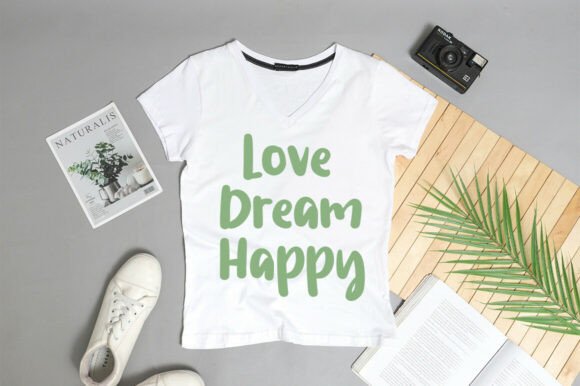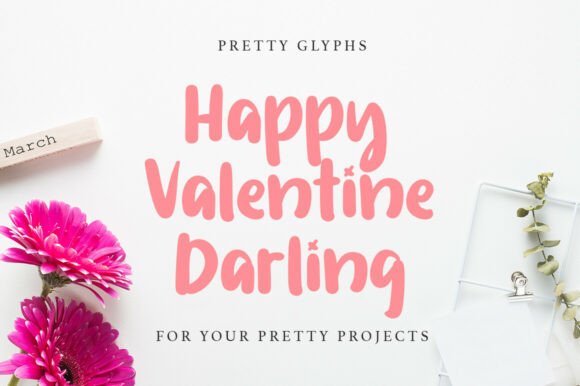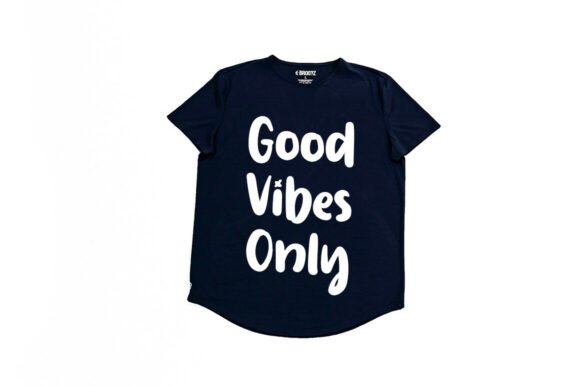
Introducing Calmline Font: The Perfect Handwritten Touch for Your Designs
Are you looking for a font that can bring warmth, personality, and a natural human touch to your designs? Look no further than Calmline Font, a beautiful handwritten font crafted to feel authentic and expressive. With its slightly imperfect strokes, smooth curves, and natural rhythm, this font is perfect for adding a friendly, stylish, and approachable look to your text.
The Beauty of Imperfection
One of the standout features of Calmline Font is its organic style, which gives your text a charming and characterful feel. The font’s slightly imperfect strokes and smooth curves evoke the feeling of real handwriting on paper, making your words feel more personal and emotional. This imperfection is what sets Calmline Font apart from more traditional fonts, giving it a unique and authentic feel that resonates with audiences.
Flexibility and Versatility
Calmline Font strikes the perfect balance between casual and elegant, making it incredibly flexible for all kinds of creative projects. Whether you’re designing logos, branding, social media posts, invitations, packaging, quotes, or crafting projects, this font adds charm and character without trying too hard. Its versatility means you can use it in a variety of contexts, from formal to informal, and still achieve a stylish and sophisticated look.
Pairing and Readability
One of the benefits of Calmline Font is its ability to pair beautifully with serif, sans serif, or minimalist fonts. This means you can easily incorporate it into your existing design aesthetic without worrying about it clashing with other fonts. Additionally, Calmline Font is highly readable, making it perfect for both short phrases and longer text. Its smooth curves and natural rhythm ensure that your message is conveyed clearly and effectively, helping you connect with your audience instantly.
Adding a Personal Touch to Your Designs
In today’s digital age, it’s easy for designs to feel impersonal and generic. Calmline Font helps you combat this by adding a personal touch to your text. Its organic style and charming imperfections make your words feel more like they were written by hand, rather than typed on a computer. This personal touch can help you build a stronger connection with your audience, making your message more relatable and memorable.
Calmline Font is perfect for designers and crafters looking to add a unique and authentic touch to their projects. Whether you’re creating branding materials, social media graphics, or crafting projects, this font is sure to impress. Its flexibility and versatility make it a valuable addition to any design toolkit, and its beautiful handwritten style ensures that your projects stand out from the crowd.
Tips for Using Calmline Font
Here are a few tips for getting the most out of Calmline Font:
- Use it for headings and titles to add a personal touch to your designs
- Pair it with serif or sans serif fonts for a stylish and sophisticated look
- Use it for body text to create a friendly and approachable tone
In conclusion, Calmline Font is a beautiful handwritten font that can bring warmth, personality, and a natural human touch to your designs. Its organic style, charming imperfections, and flexibility make it perfect for a wide range of creative projects. Whether you’re a designer or crafter, Calmline Font is sure to become a valuable addition to your toolkit. So why not give it a try and see the difference it can make in your designs?